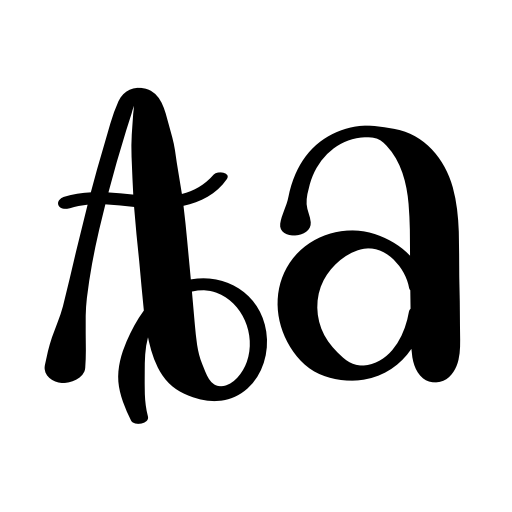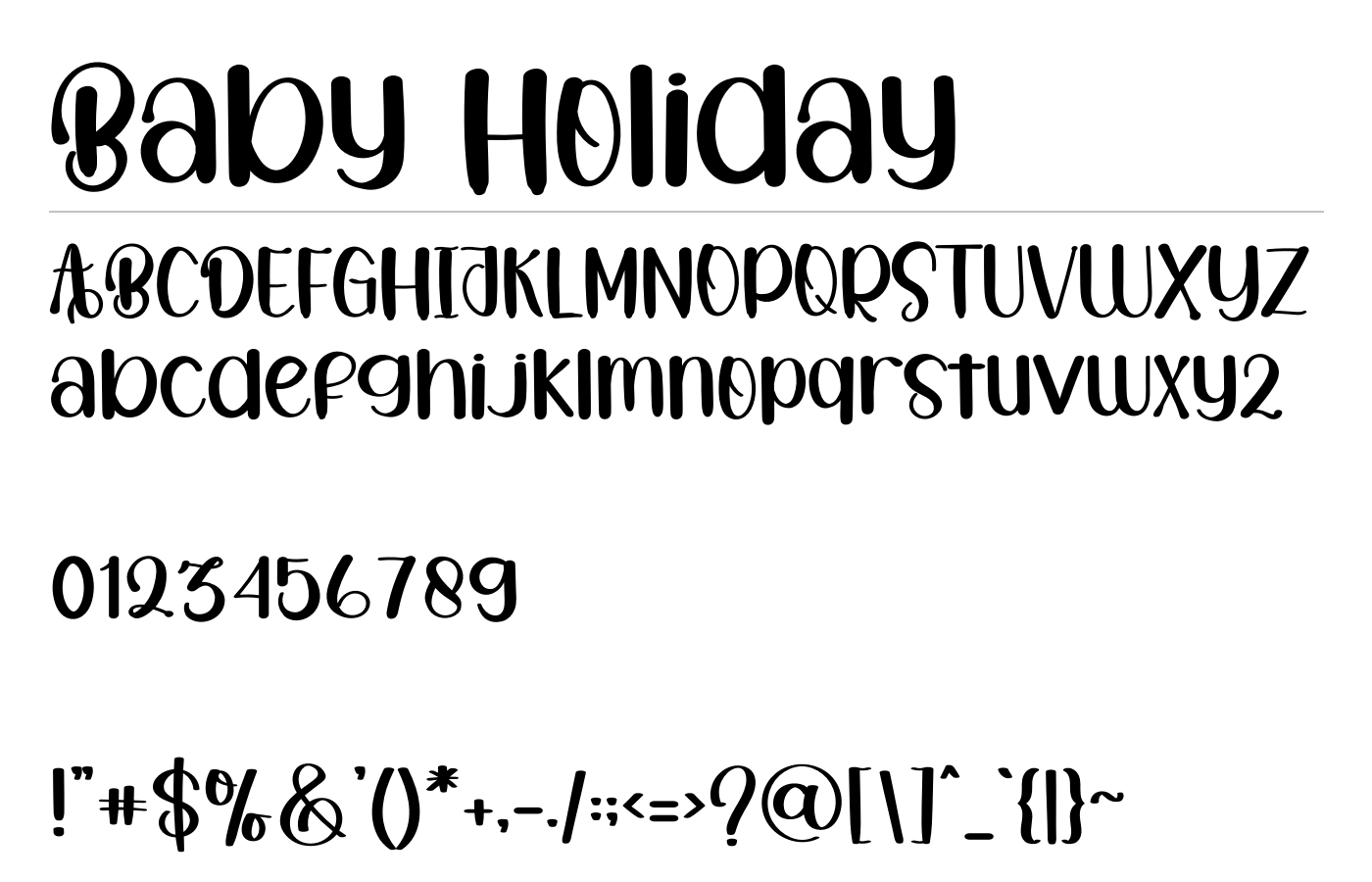
Baby Holiday is a playful, rounded sans serif font with whimsical letterforms that blend casual charm and a friendly vibe. Its unique, lively shapes and medium weight make it perfect for creative branding, children's products, and festive designs, adding a joyful and approachable feel. This font works well in headlines and invitations where a fun, informal mood is desired.
Baby Holiday Font
About Baby Holiday Font